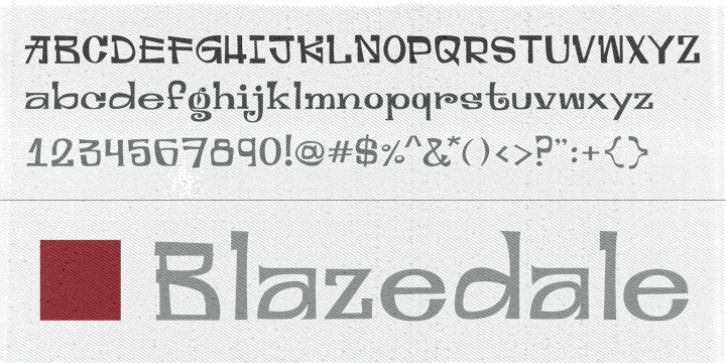
Check out this new guy: he’s casual & elegant, jaunty and sharp. Fancy, but not over-the-top. Blazedale is an instantly likable new display face ready to send a funky upbeat message.